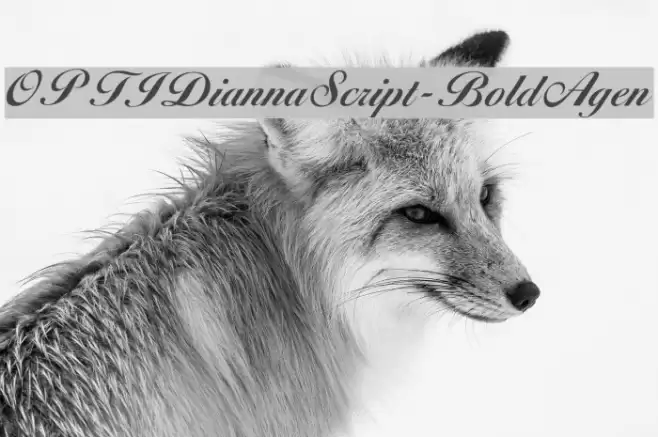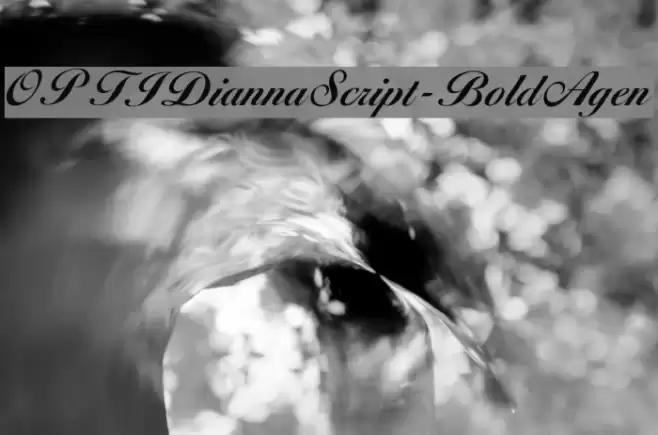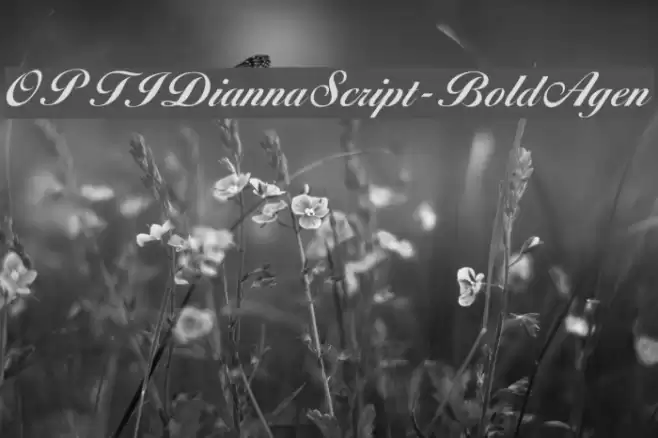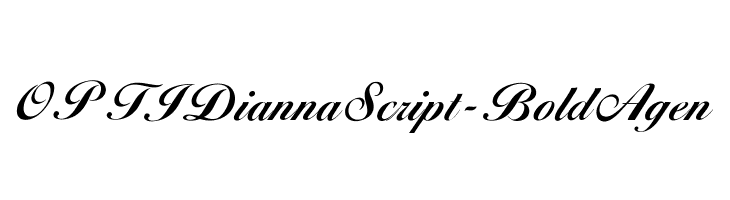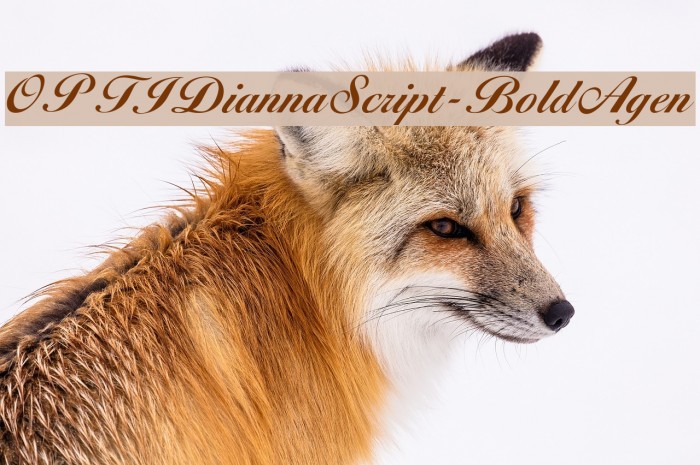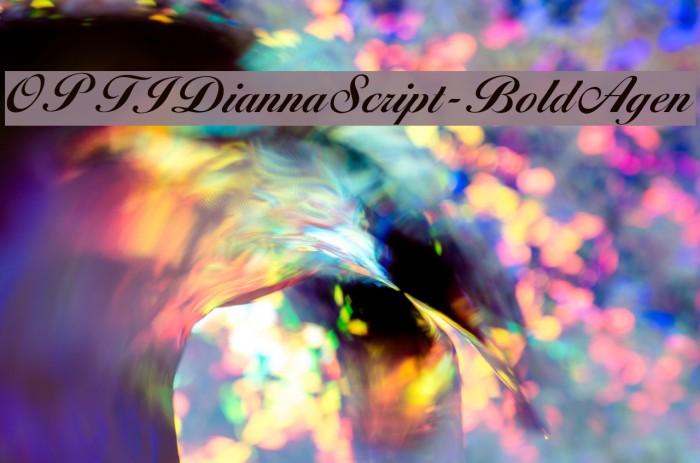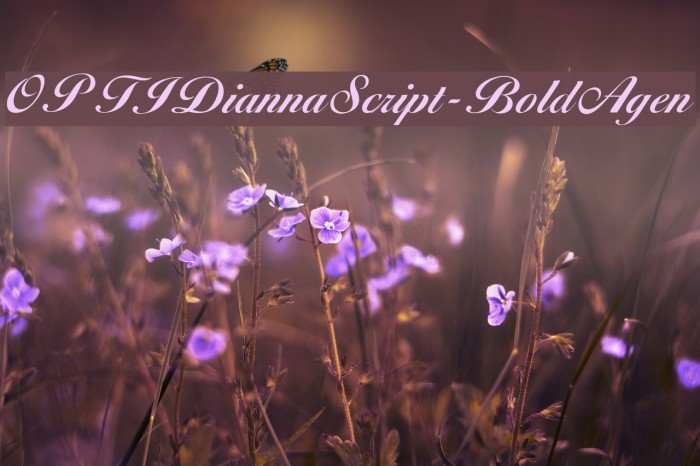
OPTIDiannaScript-BoldAgen Font
OPTIDiannaScript-BoldAgen Description
This elegant script font features a bold and flowing design, characterized by its smooth, cursive strokes and graceful curves. The uppercase letters are ornate, with intricate flourishes that add a touch of sophistication. The lowercase letters maintain a consistent flow, enhancing readability while retaining an artistic flair. Numbers and special characters are designed to complement the overall style, ensuring a cohesive look across all text. The font's bold weight and high contrast between thick and thin strokes make it stand out, ideal for creating a striking visual impact.
A bold, elegant script font with flowing, cursive strokes and high contrast from Uncategorized fonts.
- Proposed Projects: Ideal for wedding invitations, elegant branding, luxury product packaging, and decorative headlines.
- Overall Style: Elegant
- Use Case: Headlines, Invitations, Branding